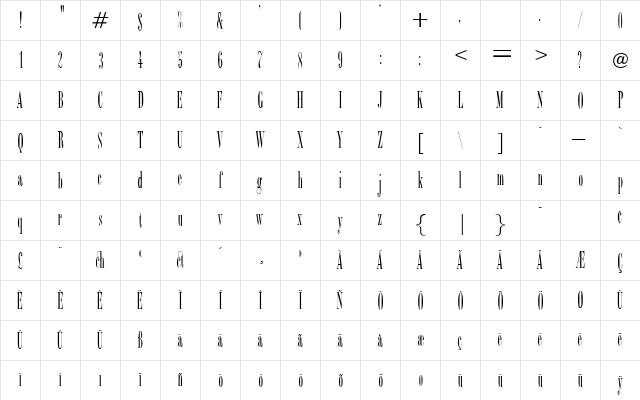
Bonhomi Regular
Design Context for Bonhomi Typeface
Bonhomi takes a measured approach to typography — its balanced proportions and neutral character make it a reliable workhorse for both digital and print work.